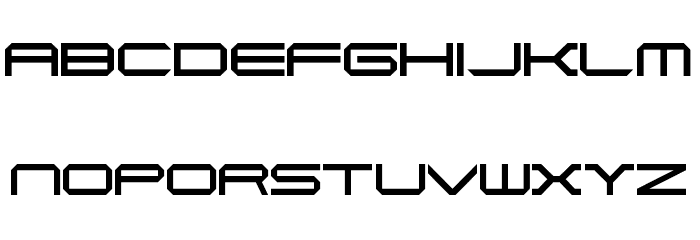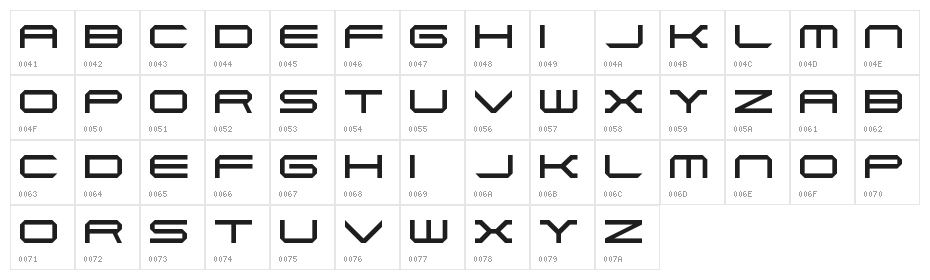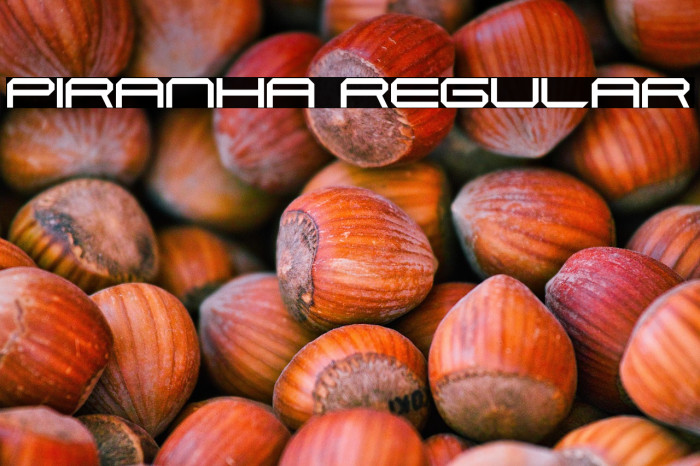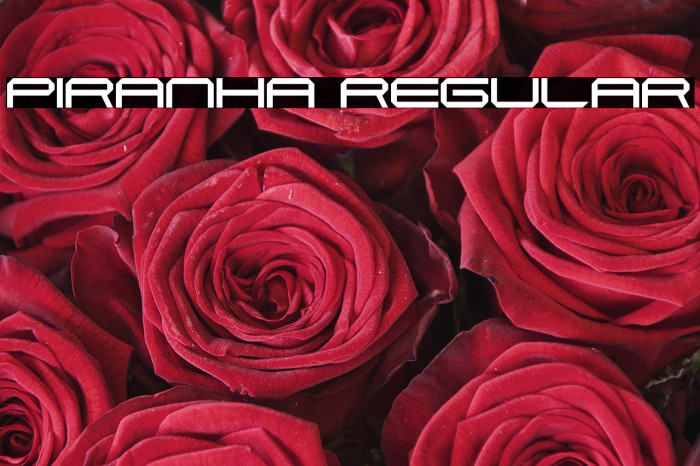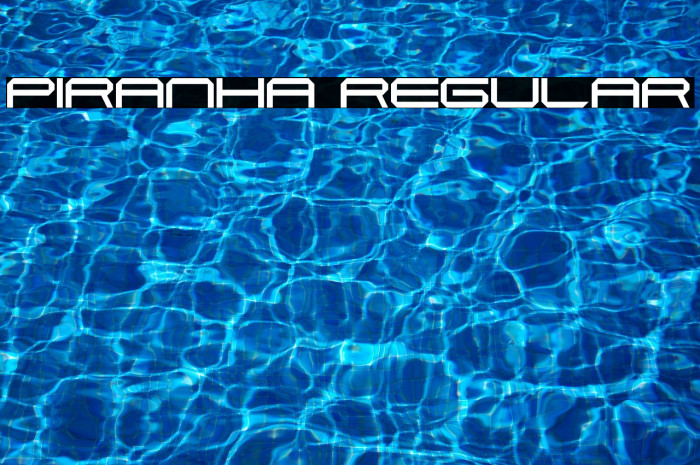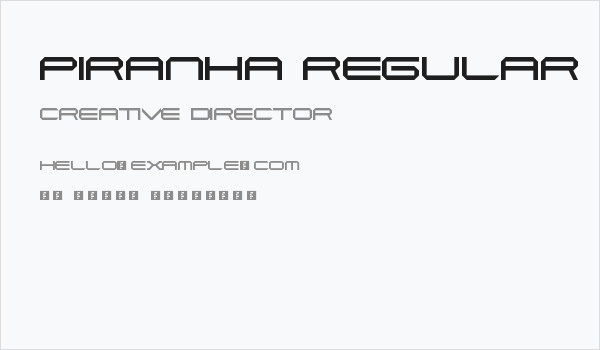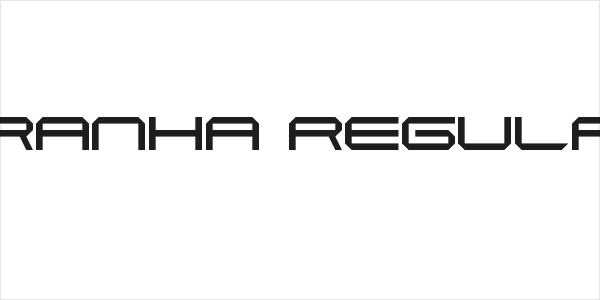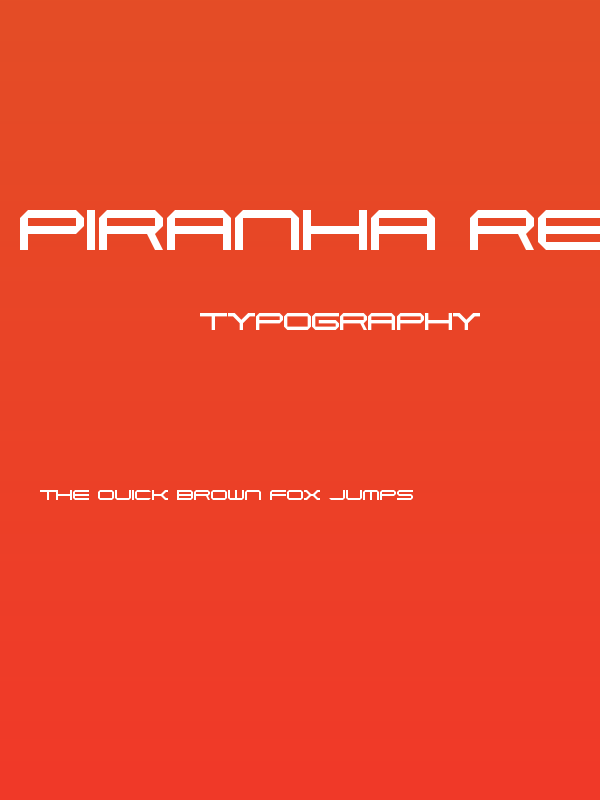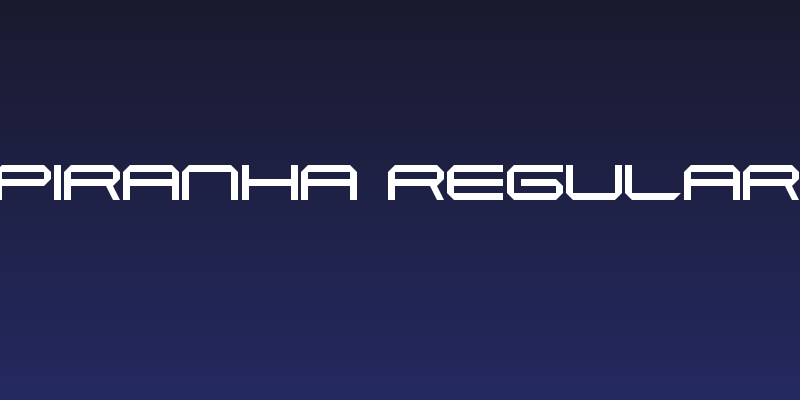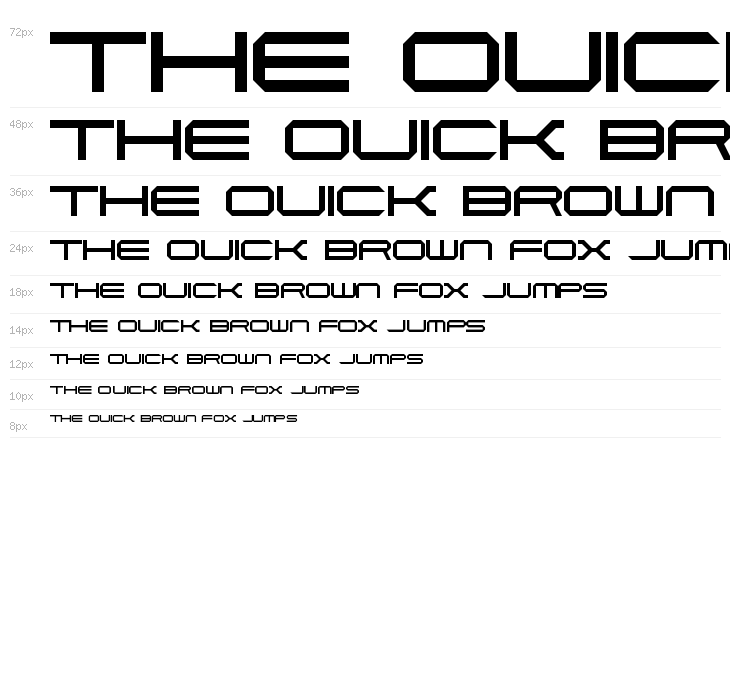
Piranha Regular Font
Piranha Regular Description
This font features a futuristic and geometric design, characterized by its angular and sharp edges. The letters are constructed with a consistent thickness, giving it a uniform appearance. The style is reminiscent of digital or sci-fi themes, making it ideal for projects that require a modern and tech-savvy look. The uppercase and lowercase letters maintain a cohesive design, while the numbers and special characters align seamlessly with the overall aesthetic. Its bold presence makes it suitable for attention-grabbing headlines and titles.
| Proposed Projects | Ideal for tech-related branding, sci-fi movie posters, video game titles, and digital media. |